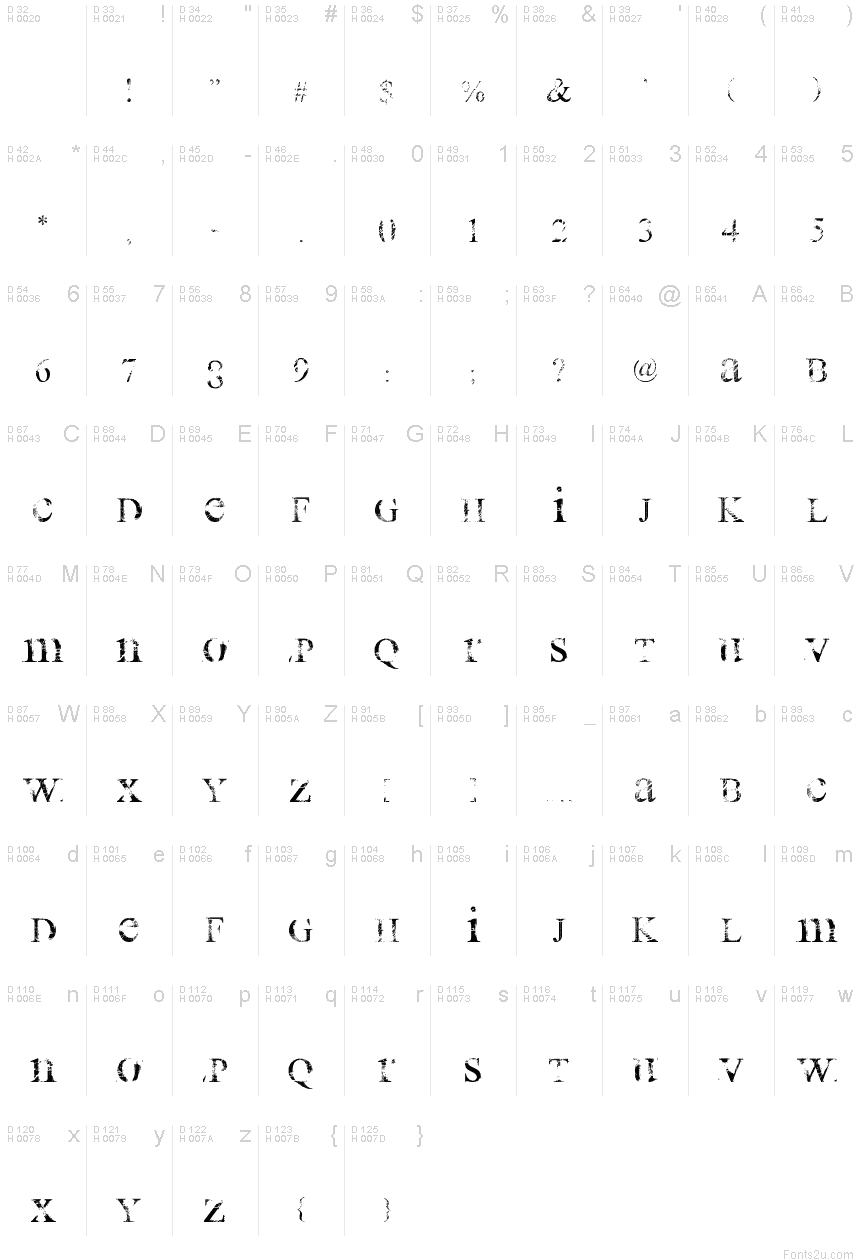
all used up
All Used Up font is a free eroded display typeface that looks like it’s been dragged across concrete and photocopied one too many times. The letters feel brittle and scraped, with broken edges and patchy inky texture that instantly adds age, grit, and tension. It’s loud, raw, and a little chaotic, giving even a single word the feeling of a torn poster on a weathered brick wall.
Using All Used Up, you can push atmosphere hard on gig posters, horror or thriller titles, dystopian game logos, zine covers, streetwear branding, and distressed packaging. This free font shines when set large, letting every crack and gap show, then balanced with a plain, clean sans serif for small supporting text.